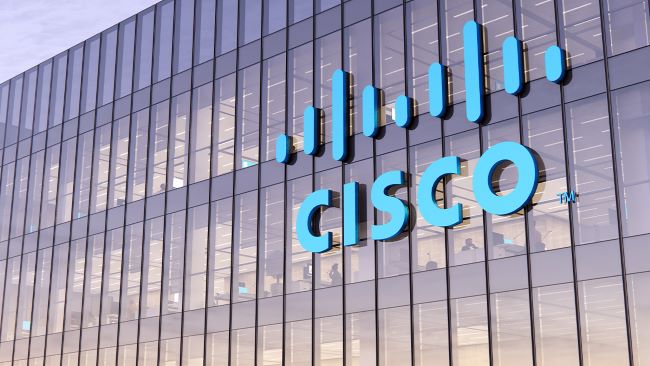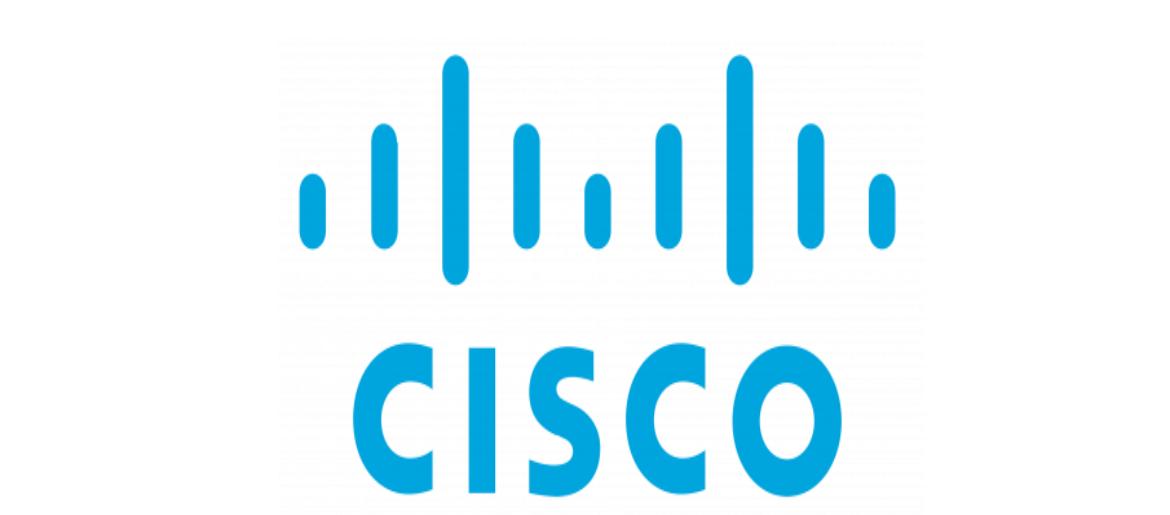
Cisco Font
Cisco Font has always stood out because of how professional and trustworthy it feels. Whenever you see their branding or technology products, it’s clear how much the Cisco logo font contributes to the company’s image of stability and innovation. The typeface perfectly matches a brand that connects the world through technology. The Cisco logo font is based on a customized version of DIN, a clean and modern sans-serif typeface. This choice communicates clarity, precision, and reliability—qualities that reflect Cisco’s role in networking and communication, looking strong across digital platforms, presentations, and product branding.
Compared to other tech companies, Cisco Font feels more structured and corporate, which helps build trust. The Cisco Font proves that a well-designed logo font doesn’t just represent a company visually—it also conveys the values and stability that customers expect.